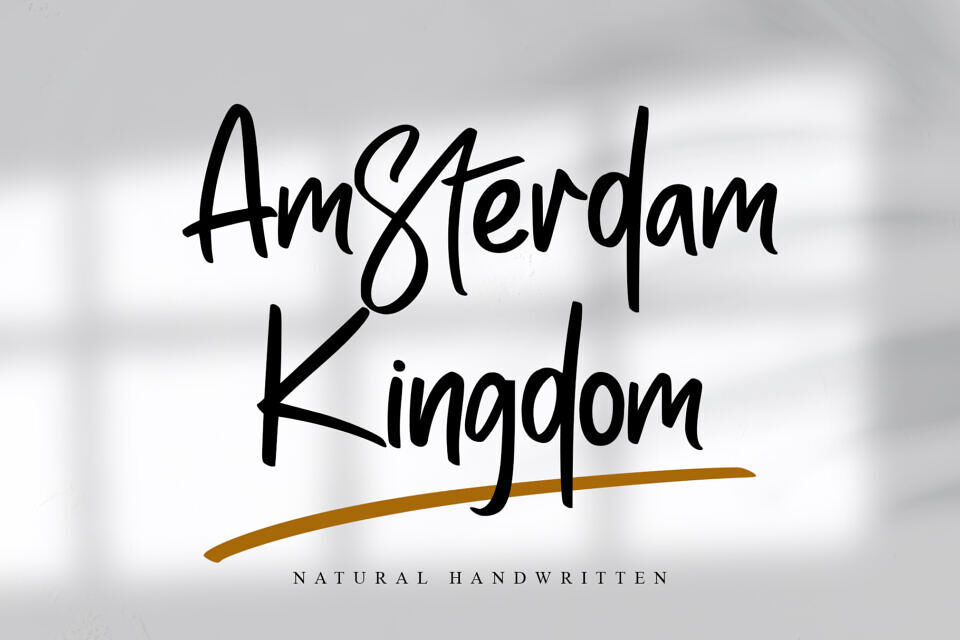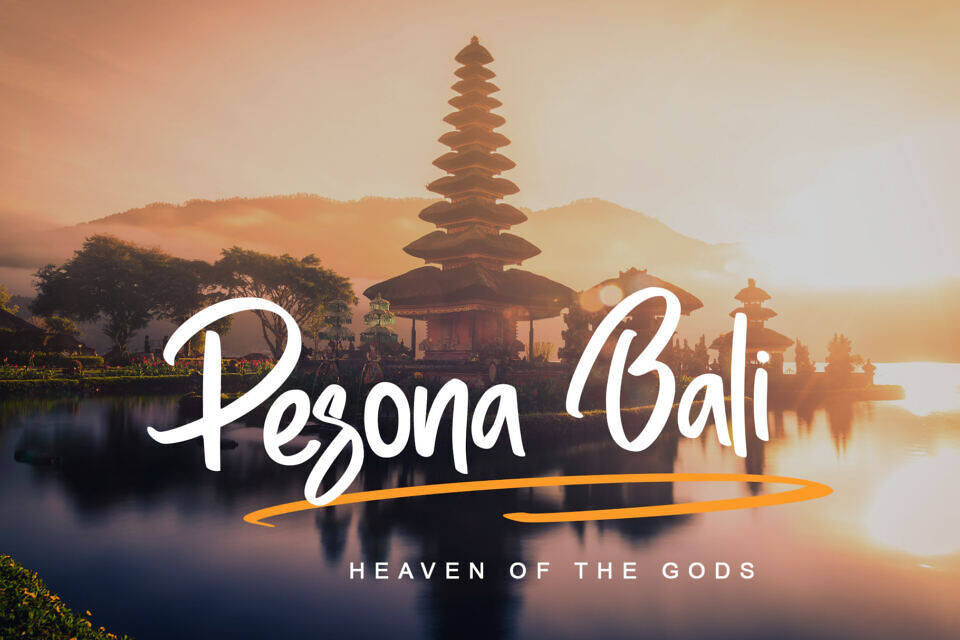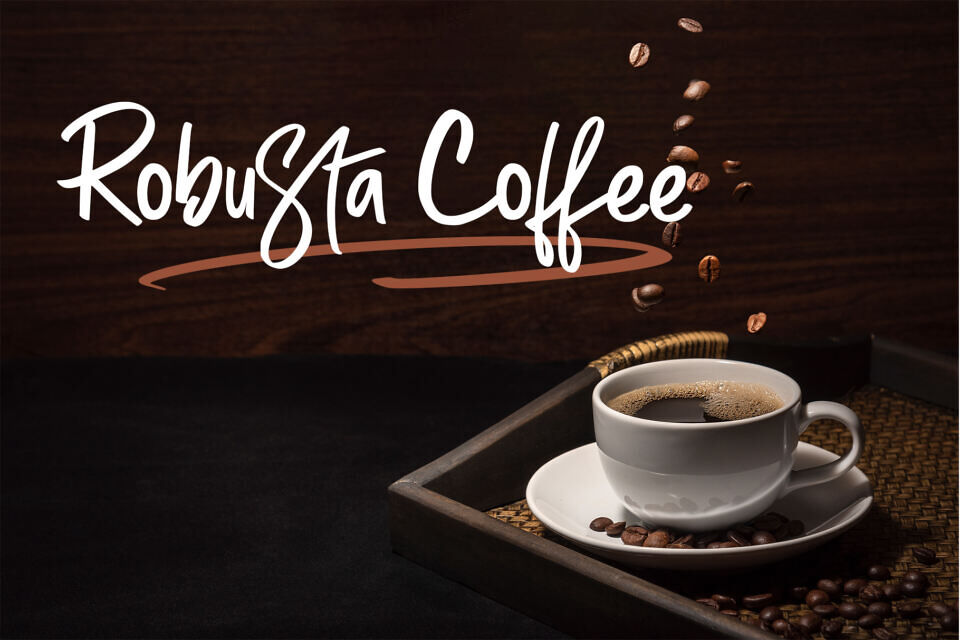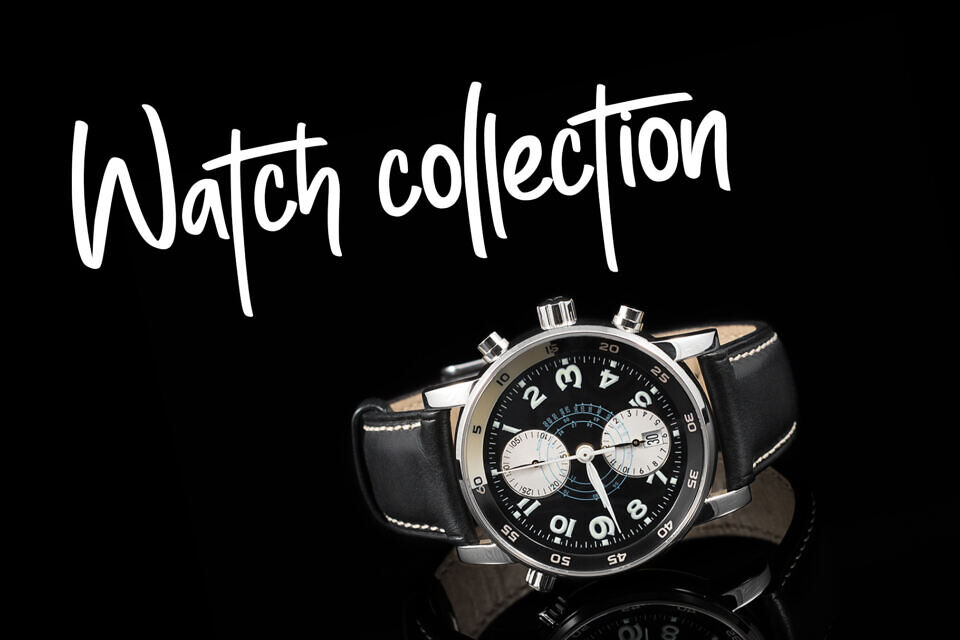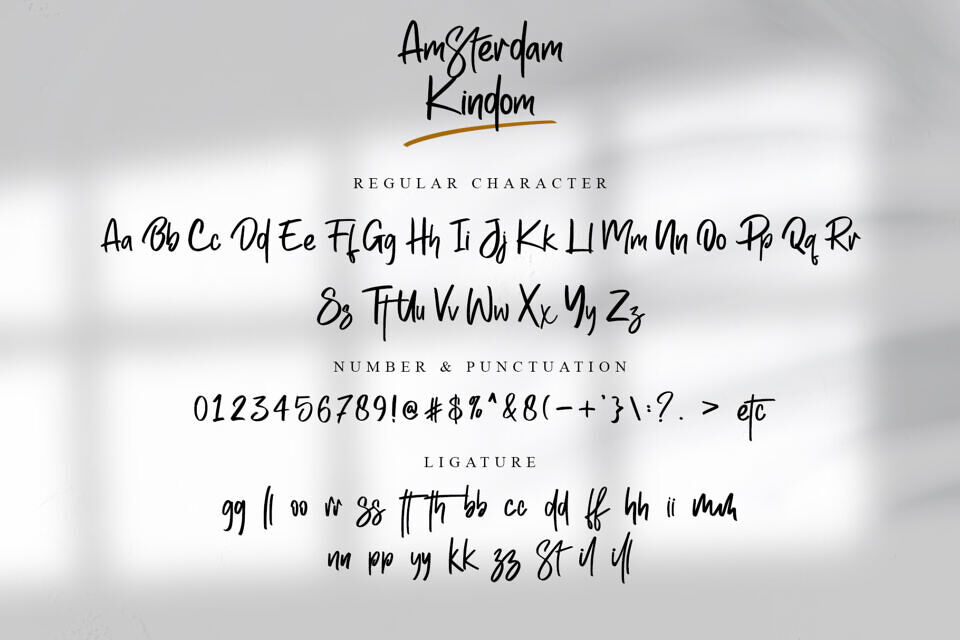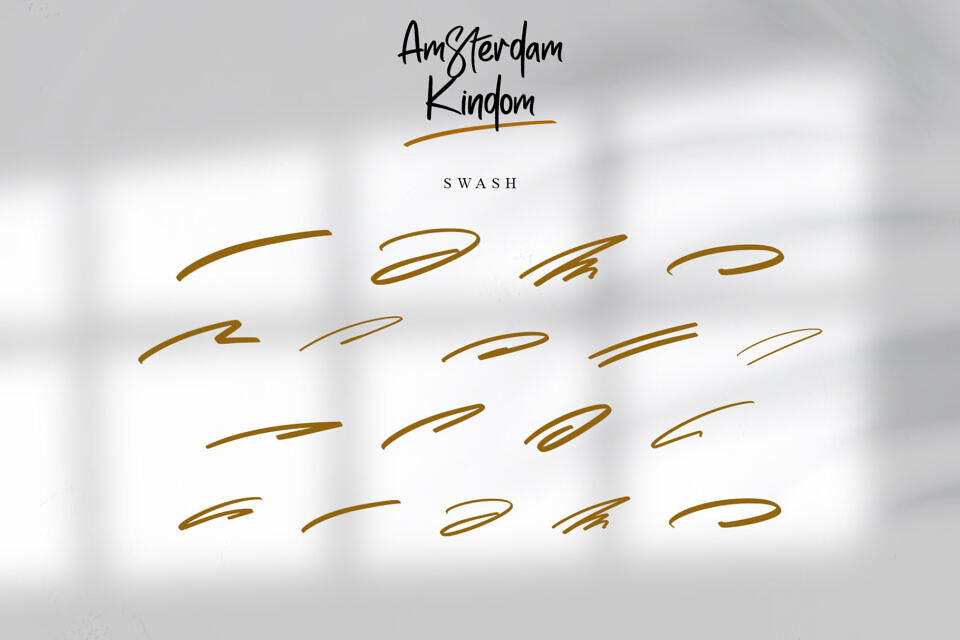
Amsterdam Kindom Font
Amsterdam Kingdom is a beautiful handwritten font with a unique feel and a stunning impact. It will add a unique spark to any design project that you wish to create!
Designed by: Thomas Aradea (Letterara)